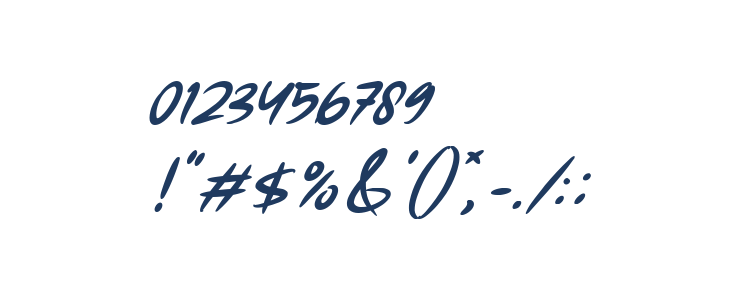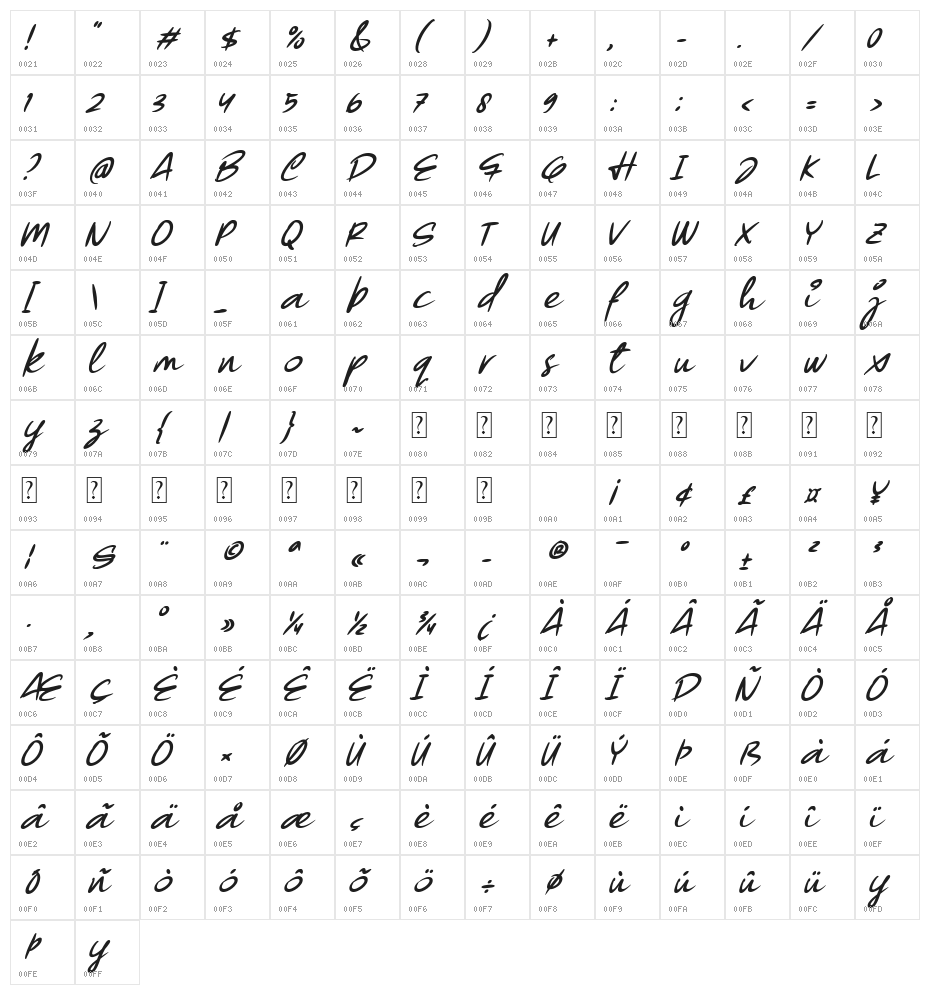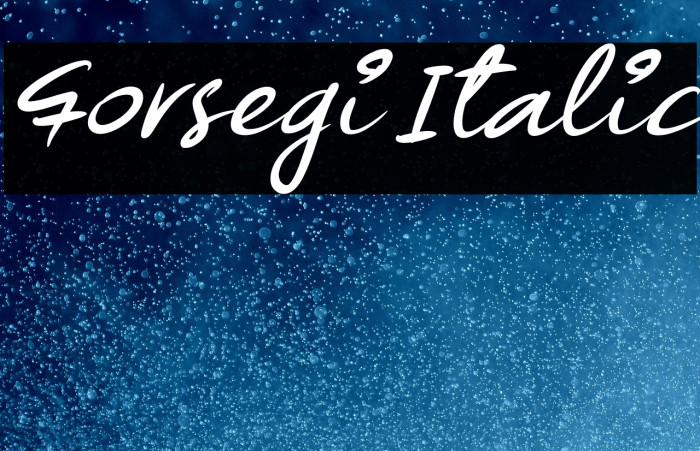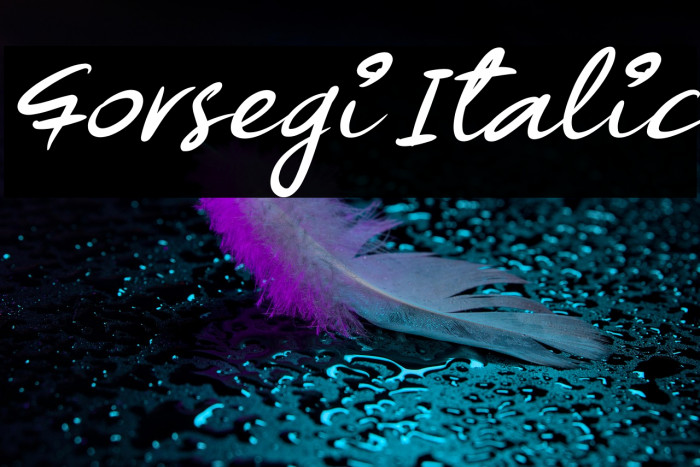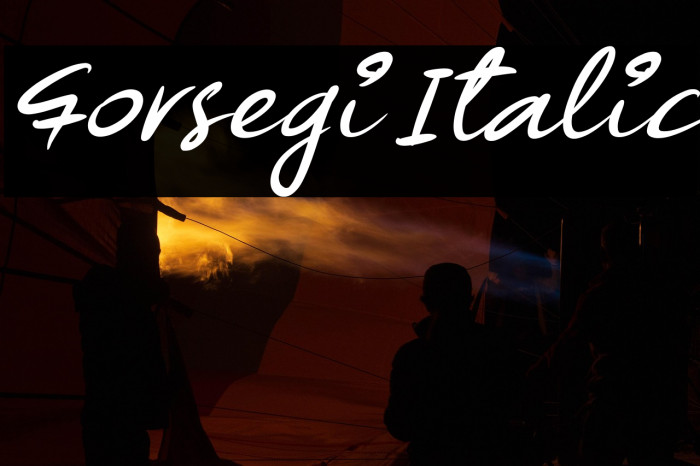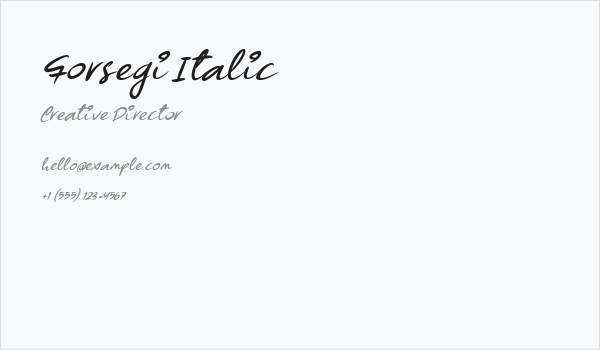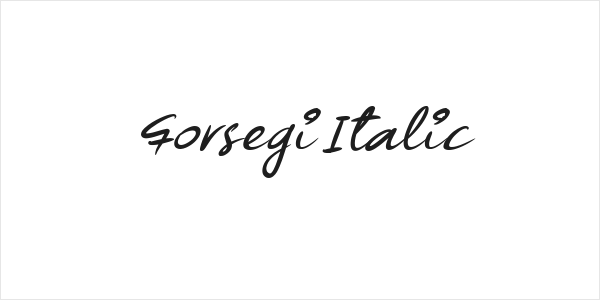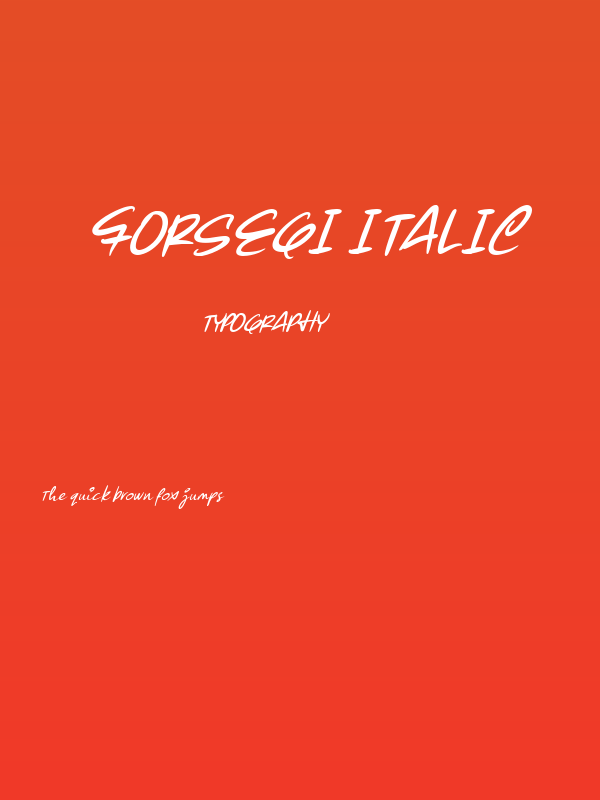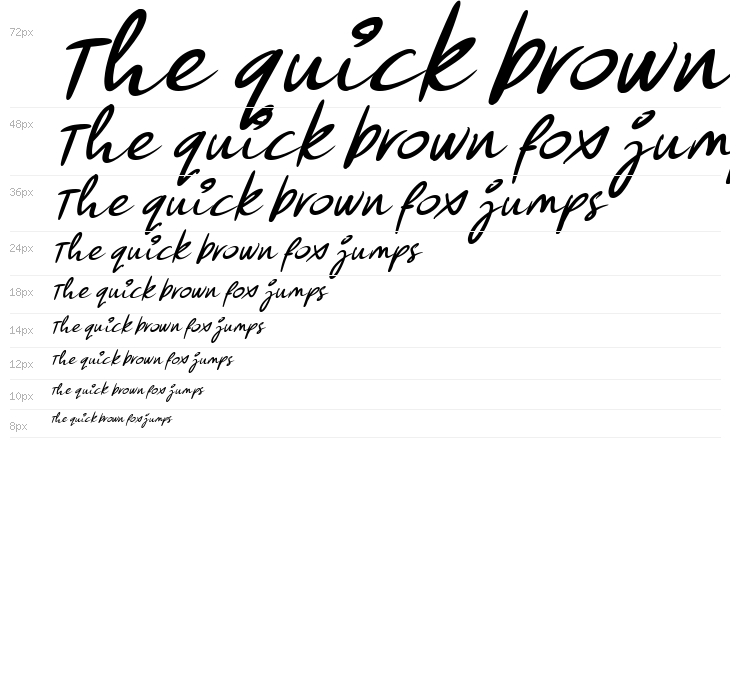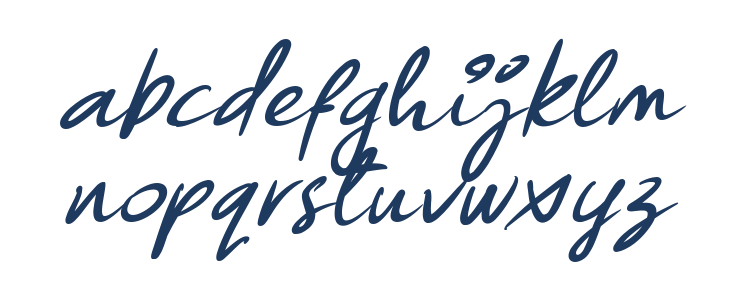
Forsegi Italic Font
Forsegi Italic Description
This font exudes a dynamic and energetic flair with its cursive, handwritten style. The letters are fluid and connected, creating a sense of motion and elegance. The strokes are bold and expressive, with a consistent slant that enhances its italic nature. The uppercase letters maintain a strong presence, while the lowercase letters are more playful and varied in their loops and curves. Numbers and special characters follow the same lively style, ensuring a cohesive look across all text elements. This font is ideal for projects that require a personal touch or a sense of sophistication.